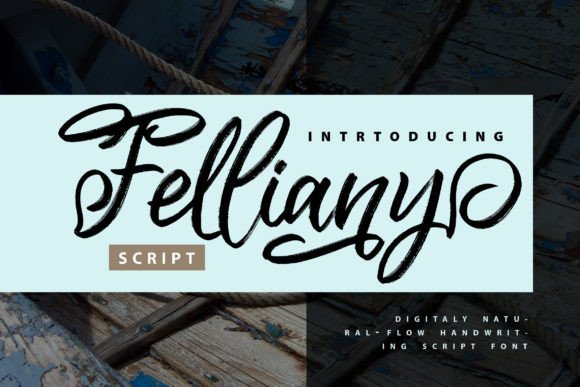
Behold the Enchanting Felliany Font - Let Your Gmail Signature Blossom with Elegance!
Step into the realm of sophistication with Felliany, a captivating script font designed to transform your Gmail signature into a breathtaking work of art. With its modern and trendy style, Felliany breathes life into every word, leaving a lasting impression on all who encounter your emails.
Felliany is a true masterpiece, carefully crafted to evoke a sense of grace and professionalism. Its meticulously designed brush strokes dance across the page, creating a visual symphony that commands attention. Whether you're crafting a formal message to a client or sending a warm greeting to a friend, Felliany elevates your words and adds a touch of personal flair that sets you apart.
Harnessing the power of PUA encoding, Felliany empowers you to unleash your creativity without limits. Effortlessly access a world of glyphs and ligatures, allowing you to explore endless possibilities in customizing your signature. Finesse every curve, accentuate each stroke, and make your Gmail signature a true reflection of your unique style.
Join the ranks of those who appreciate the finer things in life and embrace the Felliany font. Experience the joy of expressing yourself with elegance and sophistication, leaving a lasting impression with every email you send. Felliany is not just a font; it's a statement of individuality and creativity that sets you apart from the crowd.